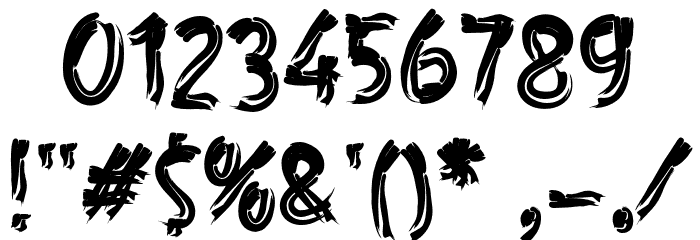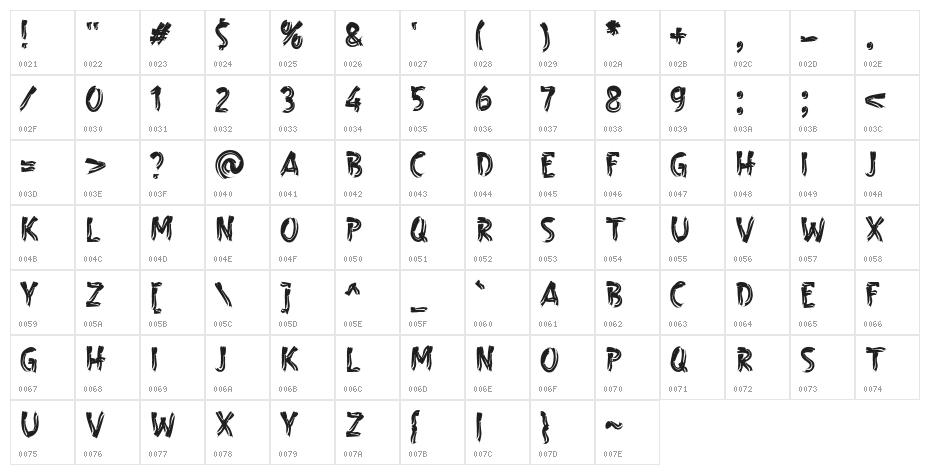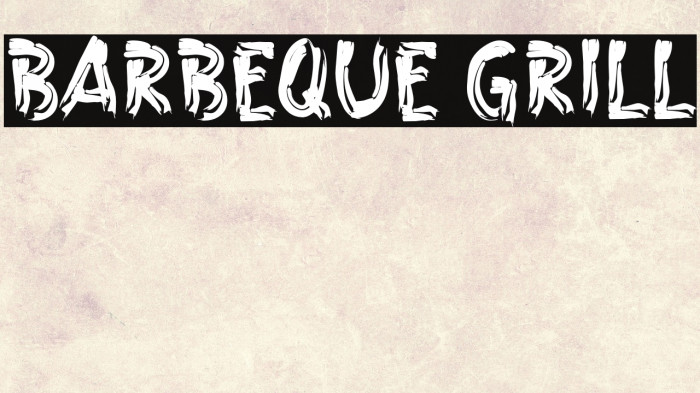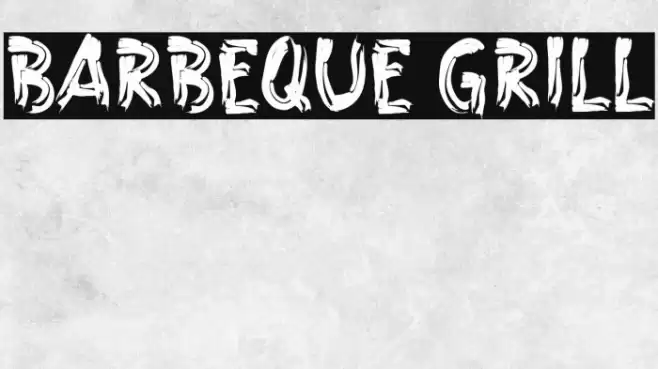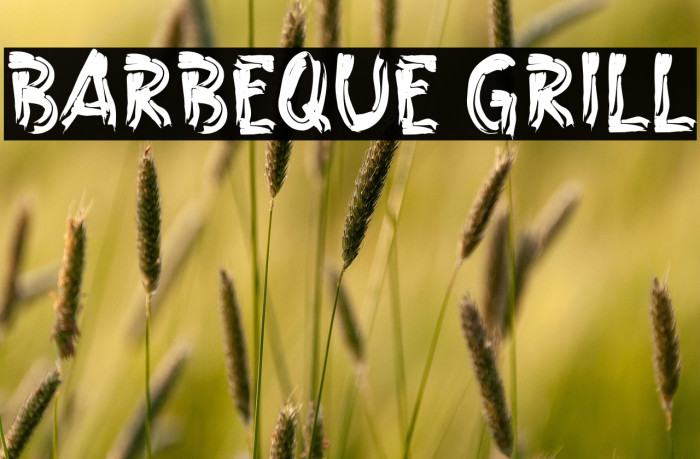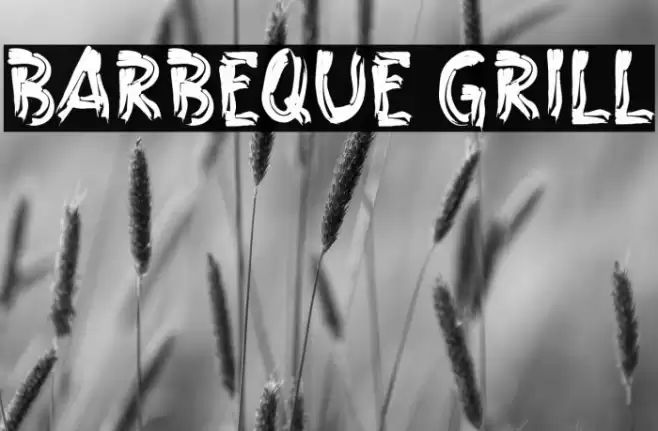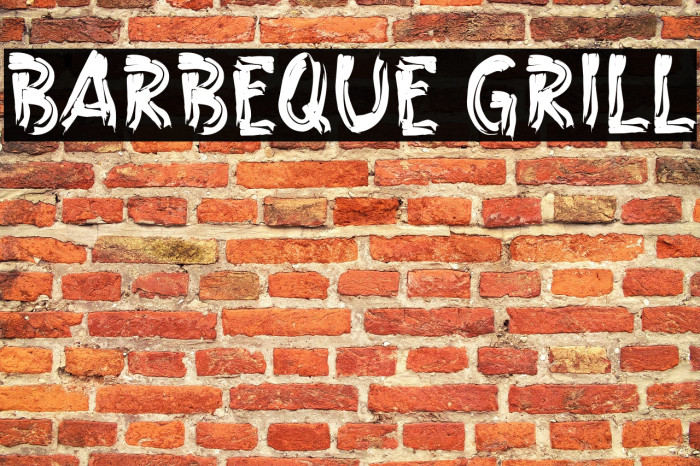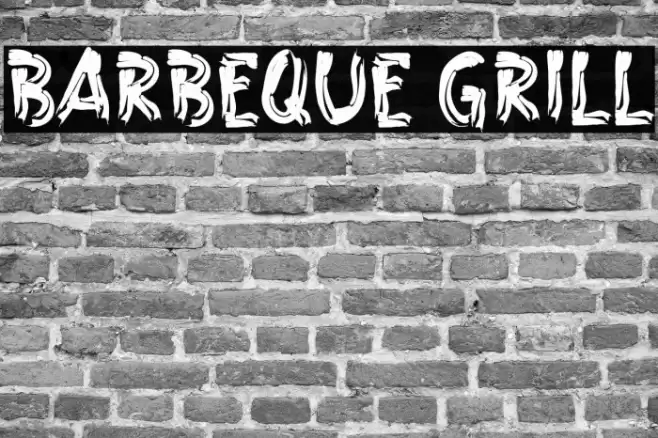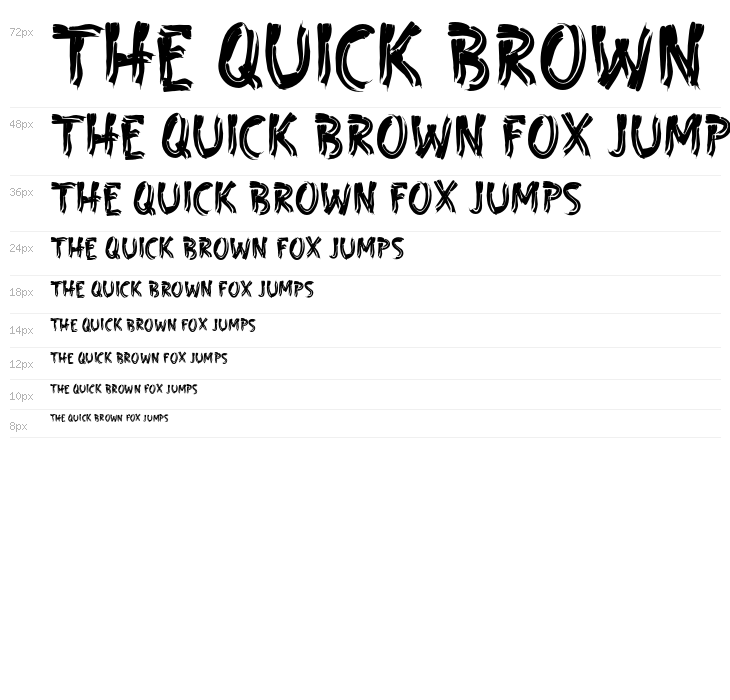
Barbeque Grill Font
Barbeque Grill Description
This font features a bold and dynamic style with a brush-like texture, giving it an energetic and slightly chaotic appearance. The strokes are uneven and jagged, resembling flames or rough brush strokes, which adds a sense of movement and intensity. The uppercase and lowercase letters maintain a consistent style, with exaggerated curves and sharp edges. The numbers and special characters follow the same aesthetic, ensuring a cohesive look across all glyphs. This font is ideal for projects that require a strong visual impact and a sense of excitement or urgency.
| Proposed Projects | Perfect for event posters, music album covers, video game titles, or any design needing a bold, energetic look. |